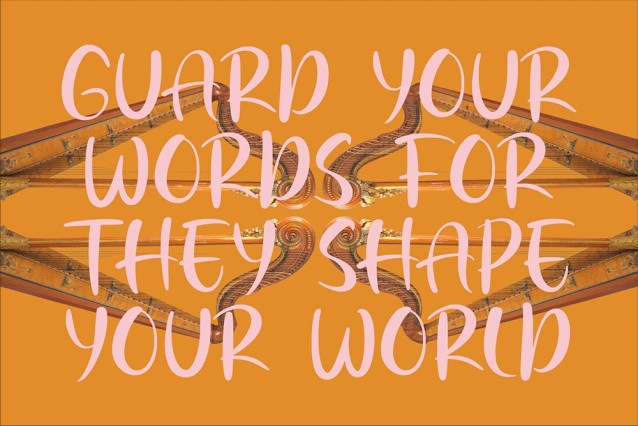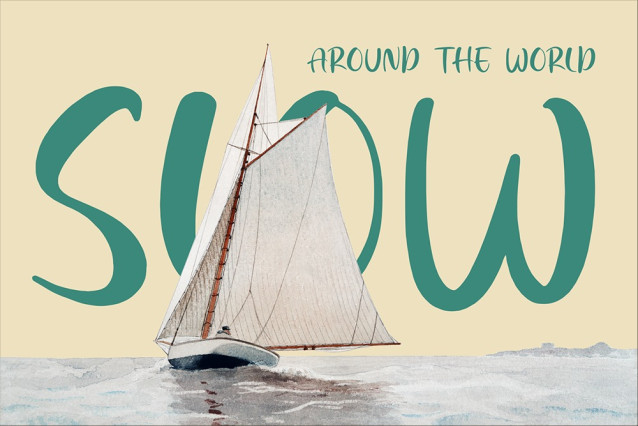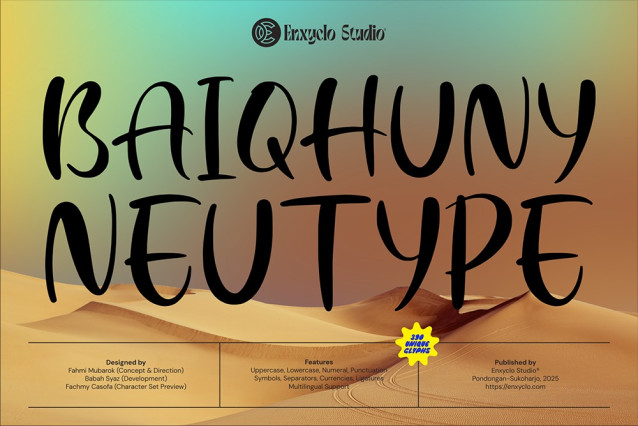
Baiqhuny Font
Baiqhuny Font, a bold and dynamic handwritten typeface designed to bring personality and energy to your designs. Crafted by Enxyclo Studio, this font features unique strokes and expressive letterforms that balance between casual and artistic style, perfect for making your text stand out with charm and character.